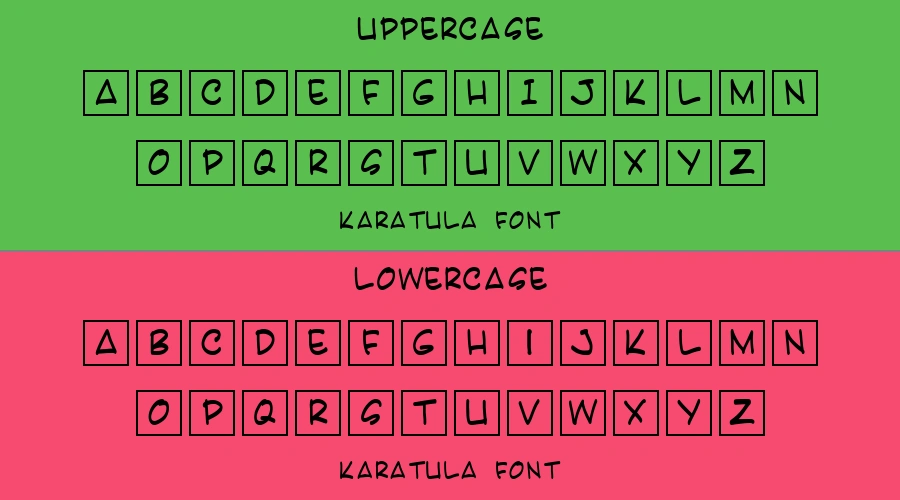
About Karatula Font
Karatula Font embodies typographic excellence through its masterful combination of humanist proportions and reliability. Created for medical texts, this typeface delivers exceptional precision and market relevance across all applications. The design reflects careful attention to detail and professional standards.
Advanced capabilities include distinctive balanced weights and versatile beginning forms, giving designers creative control. When used in business cards, Karatula Font exhibits remarkable purchase influence. The harmonious balance between proportion and creative expression sets this typeface apart.